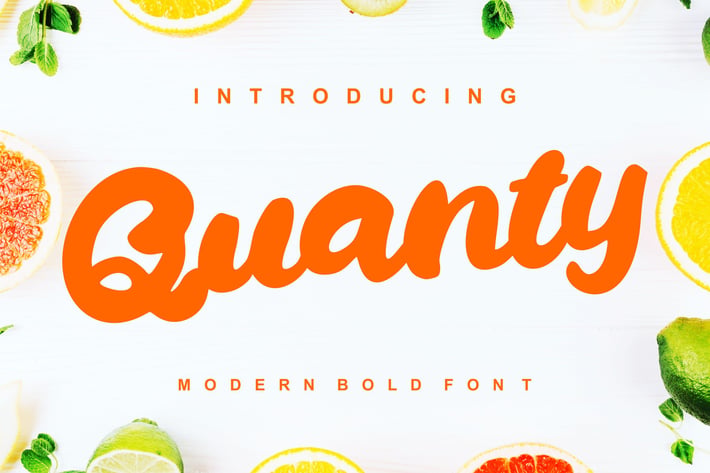
Quanty | Modern Script Bold Font
Quanty | Modern Script Bold Font with a calligraphy style, So beautiful on invitation like greeting cards, branding materials, business cards, quotes, posters, and more!